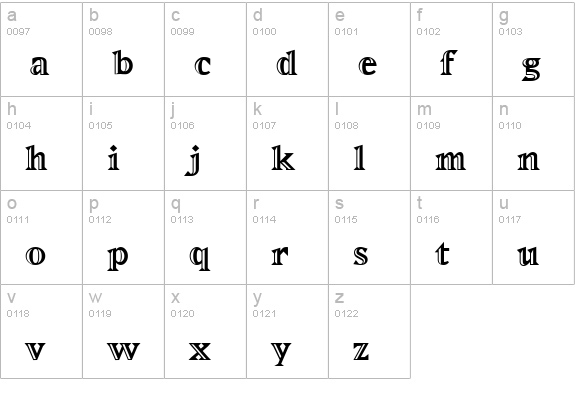
MatrixInlineExtraBoldOldstyle Bold Font Details
MatrixInlineExtraBoldOldstyle Bold is a strong, high-contrast variant in the MatrixInlineExtraBoldOldstyle typeface family \xE2\x80\x94 well suited to headlines, attention-grabbing titles, and strong calls-to-action.
MatrixInlineExtraBoldOldstyle Bold font is a bold and striking typeface that exudes a sense of strength and modernity. With its clean lines and distinctive design, this font is perfect for making a bold statement in your projects. The extra bold weight adds a touch of drama and impact to any text, making it ideal for headlines, titles, and other prominent text elements. What sets MatrixInlineExtraBoldOldstyle Bold font apart is not only its visual appeal but also its versatility. Whether you're designing a poster, logo, website, or any other creative project, this font will help you stand out and make a lasting impression. Best of all, MatrixInlineExtraBoldOldstyle Bold font is available for free download at FontsMarket.com. This means you can easily access this stylish and impactful typeface without any cost, making it a valuable addition to your font collection. Don't miss out on the opportunity to elevate your designs with MatrixInlineExtraBoldOldstyle Bold font today!